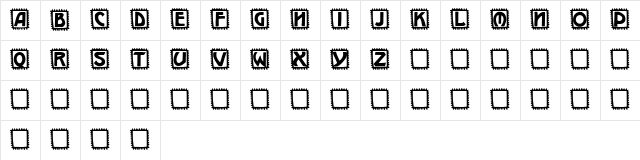
Takker Regular Font Preview
Takker Regular
Takker Regular Font Details
Design Context for Takker Typeface
Takker is a composed and adaptable typeface that performs quietly and consistently across a wide range of design contexts.